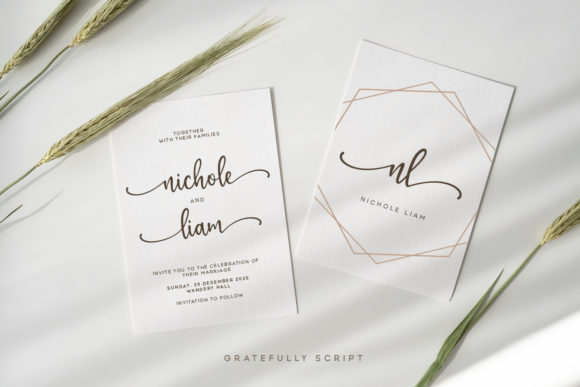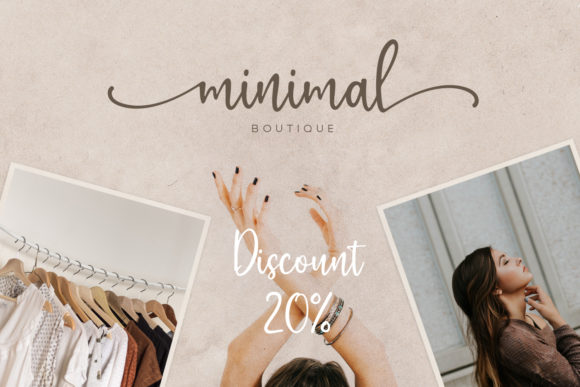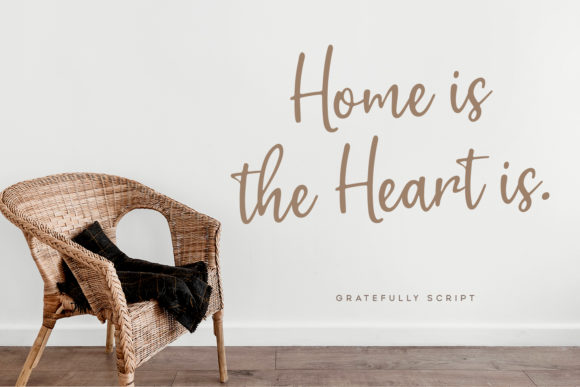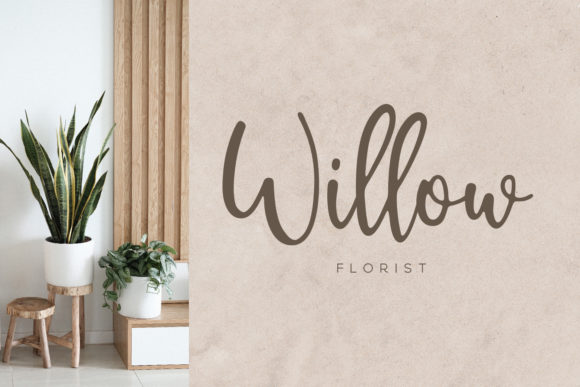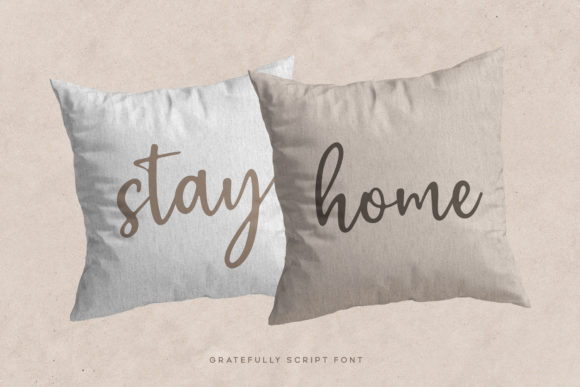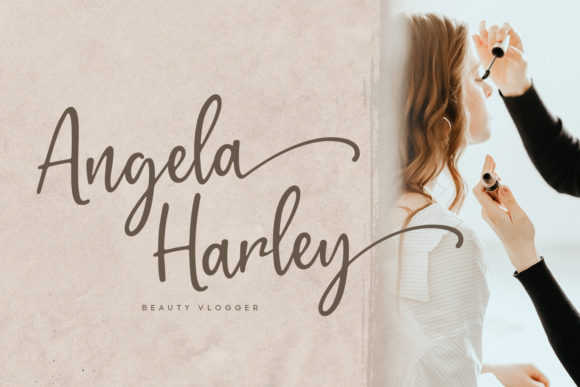
Gratefully Font: A Minimalist and Beautiful Script Font for Your Creative Projects
In the world of typography, fonts play a crucial role in conveying the message and tone of a design. Among the numerous fonts available, Gratefully Font stands out for its minimalist and beautiful script style. This font is perfect for designers and crafters looking for a versatile and down-to-earth typeface that can elevate their creative projects.
What Makes Gratefully Font Special?
Gratefully Font is a script font that boasts a casual charm, making it wonderfully readable and incredibly versatile. Its minimalist design ensures that it can be used in various contexts, from busy backgrounds to standalone headlines. The font’s beauty lies in its simplicity, allowing it to blend seamlessly with different design elements.
Key Features of Gratefully Font
- Minimalist Design: Gratefully Font features a clean and simple design that makes it perfect for modern designs.
- Beautiful Script Style: The font’s script style adds a touch of elegance and sophistication to any design.
- Casual Charm: Gratefully Font’s casual charm makes it appear down-to-earth and approachable.
- Readability: The font’s readability ensures that it can be used for body text or headlines without compromising legibility.
- Versatility: Gratefully Font can be used in various contexts, from digital designs to print materials.
Use Cases for Gratefully Font
Gratefully Font is an excellent choice for various design projects, including:
- Branding and Logo Design: The font’s unique style makes it perfect for creating memorable brand identities.
- Digital Designs: Gratefully Font can be used for website headers, social media graphics, and email marketing campaigns.
- Print Materials: The font is suitable for business cards, brochures, and posters.
- Packaging Design: Gratefully Font can add a touch of elegance to product packaging.
Tips for Using Gratefully Font Effectively
To get the most out of Gratefully Font, consider the following tips:
- Pair it with Other Fonts: Combine Gratefully Font with other fonts to create a unique and visually appealing design.
- Experiment with Colors: Try different color combinations to find the perfect match for your design.
- Use it for Headlines and Body Text: Gratefully Font’s readability makes it suitable for both headlines and body text.
Gratefully Font is a beautiful and versatile script font that can elevate your design projects. Its minimalist design, casual charm, and readability make it perfect for various contexts. Whether you’re a designer or crafter, Gratefully Font is an excellent choice for adding a touch of elegance and sophistication to your creations.